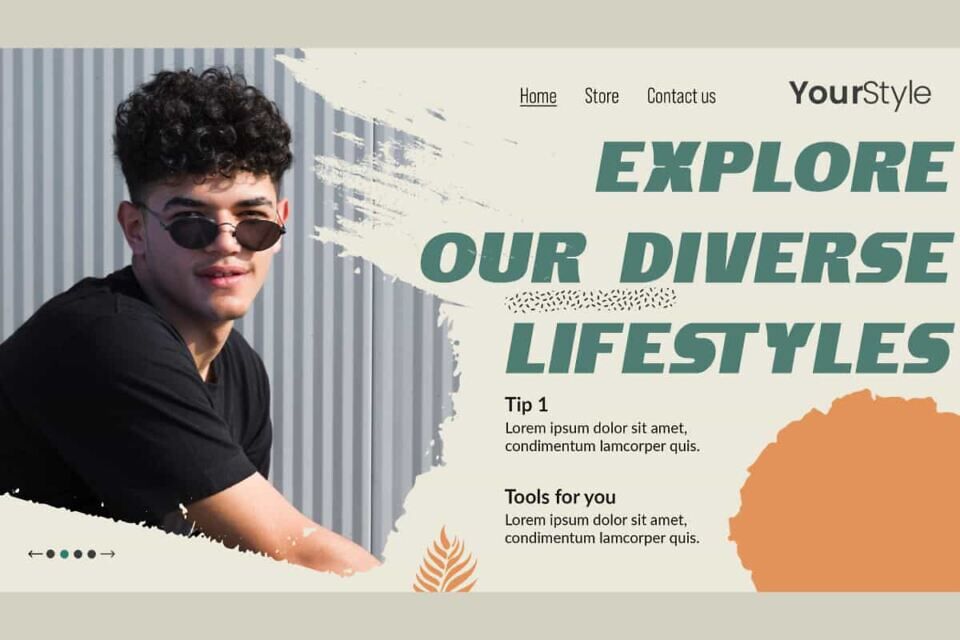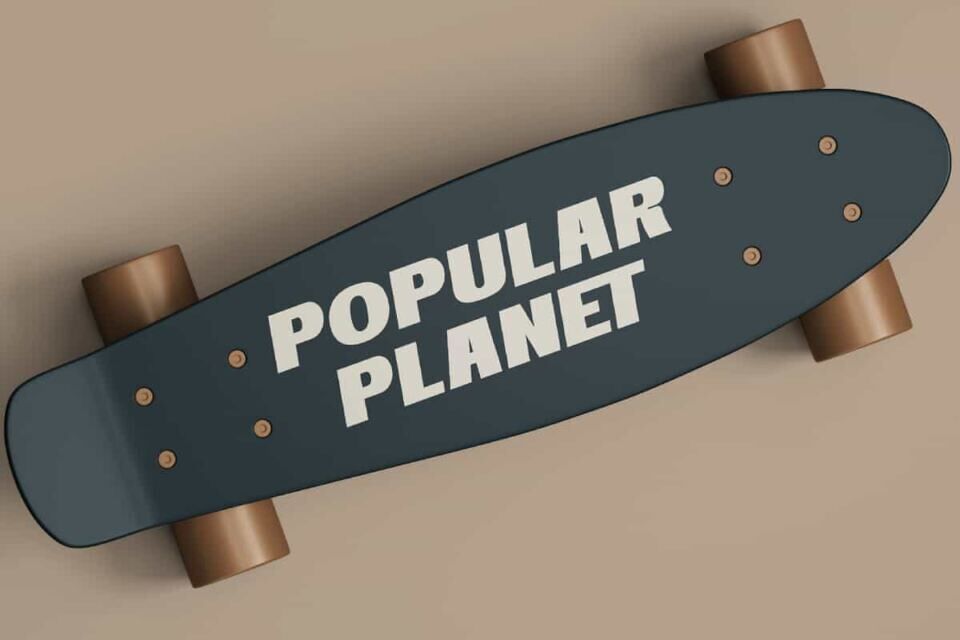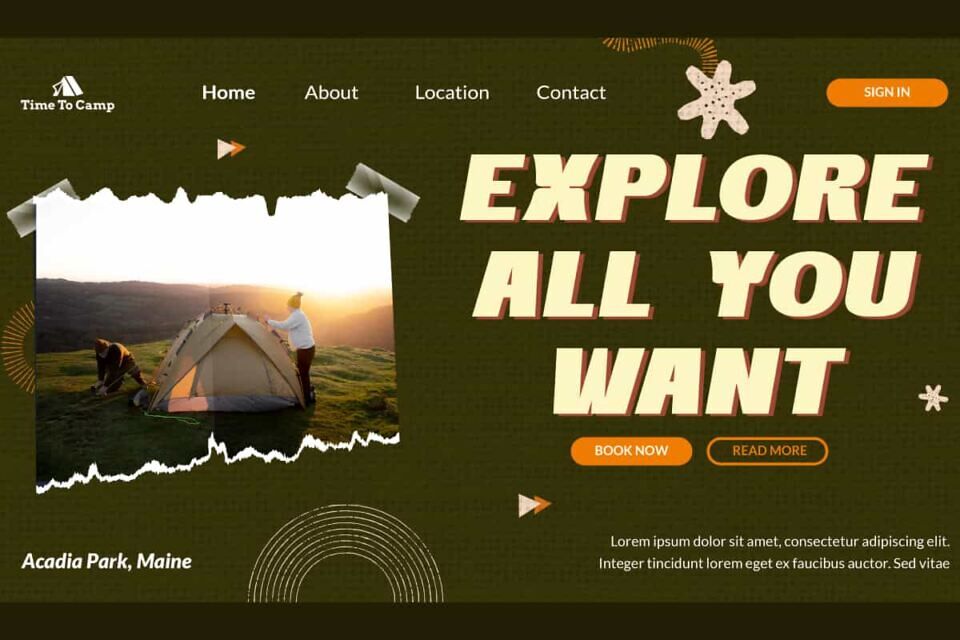
Popular Planet Font is a modern chic racing display font, created by RaisProject. This font can perfectly realize the appearance of a racing theme and can be paired with other types of fonts.
It will be good for any designs, such as stationery, custom design, signage, brand image, advertisement, invitation, label, marketing material, poster, product packaging, quotes, website page, and more!